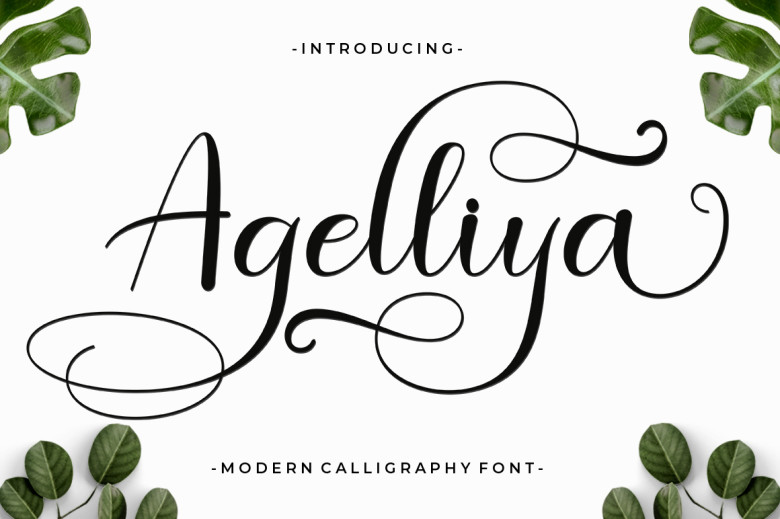
Agelliya Font
Agelliya is a new modern script calligraphy font with an irregular base line. Trendy and feminine style. The script looks beautiful in wedding invitations, thank you cards, quotes, greeting cards, logos, business cards, and more. Perfect for use in ink or watercolors. Including beginning and end letters, alternatives and support for many languages.
Agelliya Calligraphy Script Font